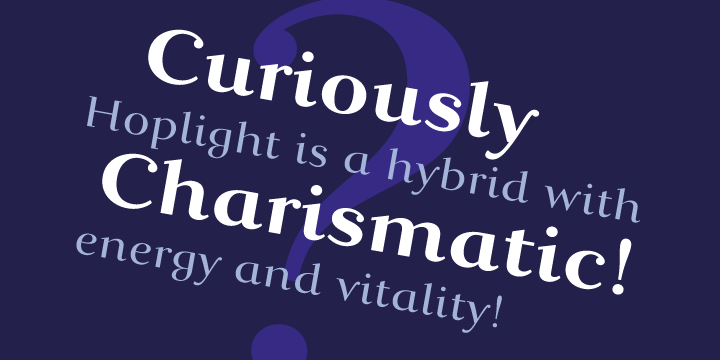
• Hoplight
Hoplight, the first offering from designer Robbie Smith, is an eye- catching hybrid serif packing a calligraphic punch, released through his Smith Hands vehicle. Wonderfully crafted and very distinctive, it’s quirky but stylish with it. The addition of a bold weight has increased Hoplight’s usability as an elegant, contemporary headline face.